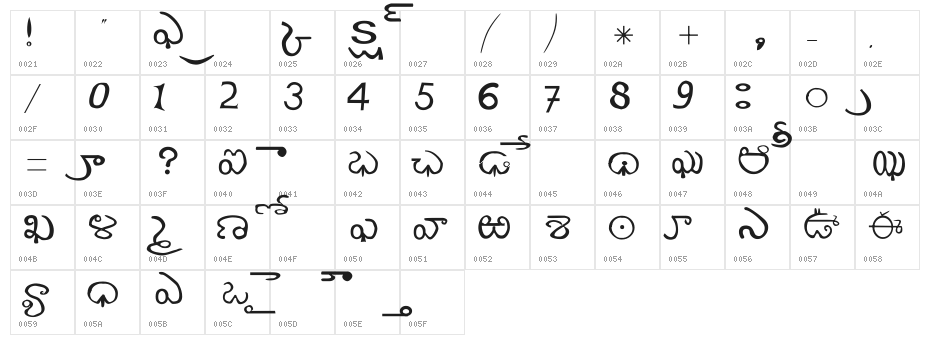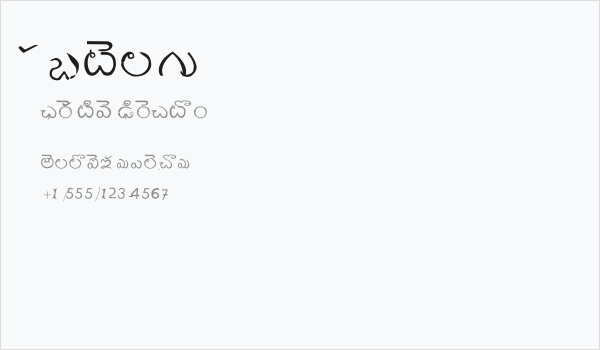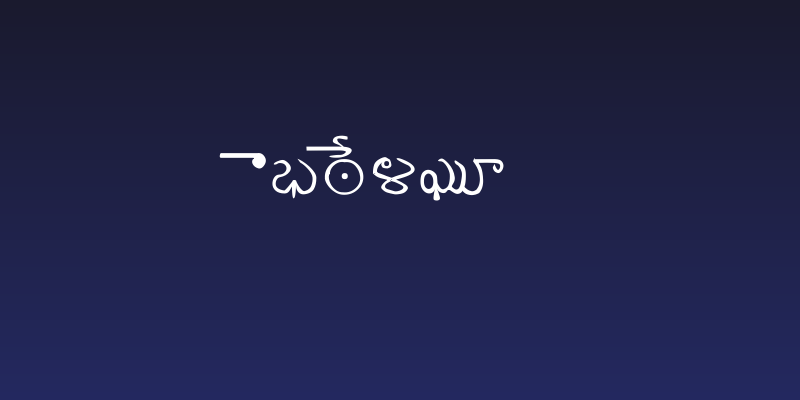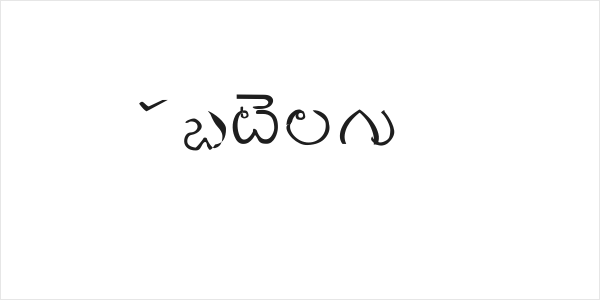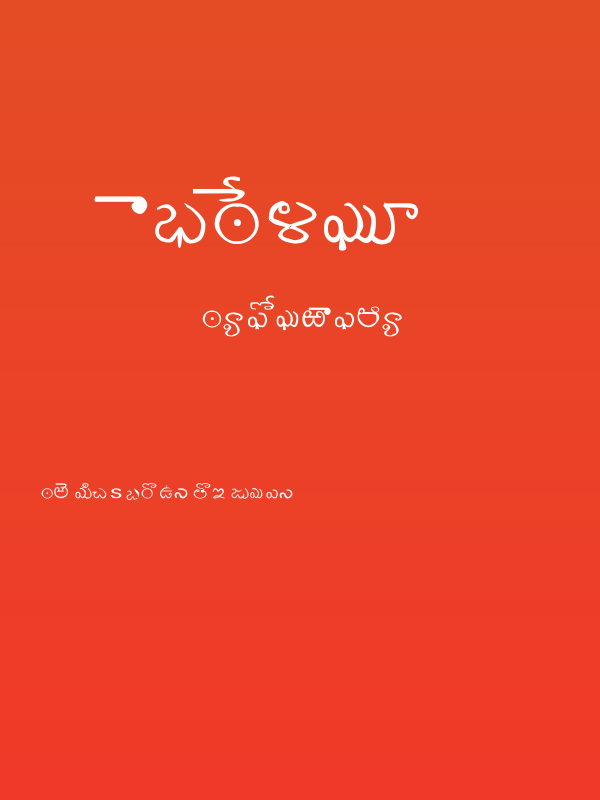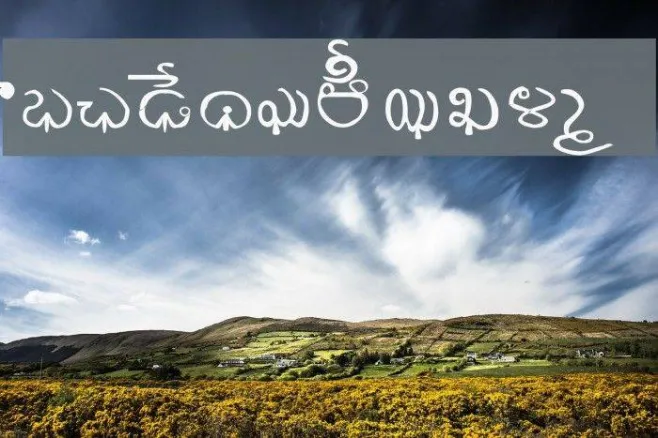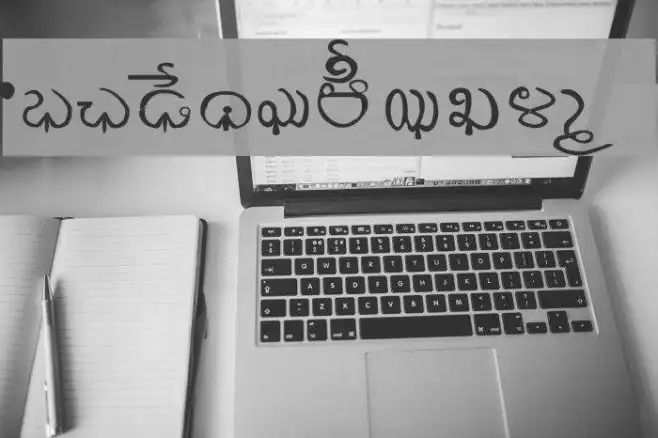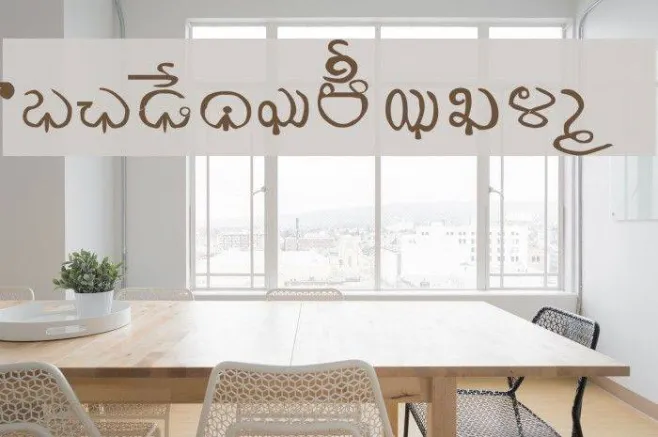
abtelgu Font
abtelgu Description
This font features a unique blend of traditional and modern elements, characterized by its elegant curves and distinct strokes. The characters exhibit a harmonious balance between thick and thin lines, creating a visually appealing contrast. The numerals are bold and clear, ensuring readability, while the special characters add a touch of flair with their artistic design. The overall style is both sophisticated and approachable, making it suitable for a variety of applications.
| Use Case | Logos, Headlines |
| Proposed Projects | Ideal for branding, editorial design, and cultural projects that require a touch of elegance and tradition. |